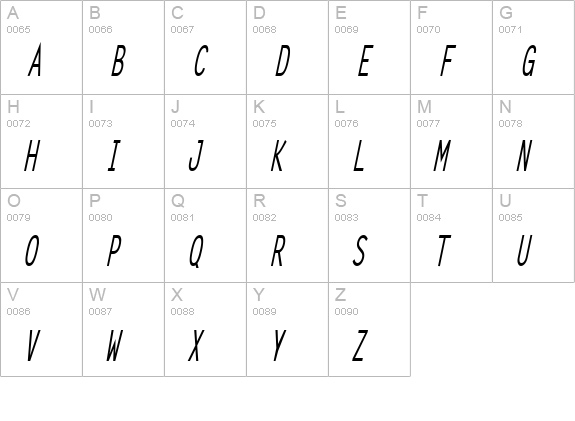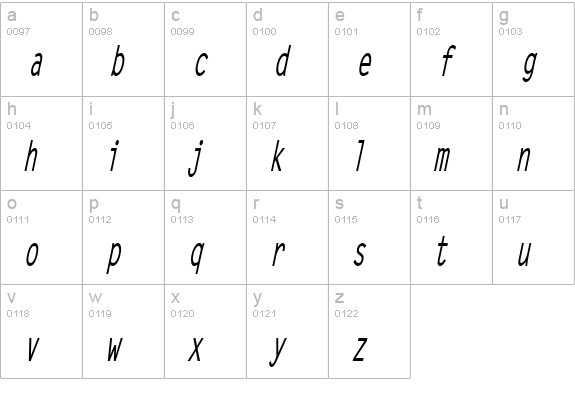
Lechter Thin BoldItalic is a delicate, low-contrast variant in the Lechter typeface family \xE2\x80\x94 well suited to fashion editorial, minimal branding, and high-contrast display.
Introducing the exquisite Lechter Thin BoldItalic font, an epitome of elegance and sophistication. This captivating typeface seamlessly combines the delicate grace of the Thin style with the bold confidence of the BoldItalic variant, creating a harmonious balance that is sure to leave a lasting impression. Lechter Thin BoldItalic exudes a sense of modernity with its sleek and streamlined design. The slender strokes of the Thin style are enhanced by the bold and slanted letterforms of the BoldItalic style, resulting in a visually striking and dynamic font that commands attention. Perfect for a wide range of design projects, Lechter Thin BoldItalic effortlessly elevates any creative endeavor. Whether used for logo designs, branding materials, editorial layouts, or social media graphics, this font adds a touch of sophistication and refinement to your work. And the best part? Lechter Thin BoldItalic is available for free! That's right, you can download this exceptional font at absolutely no cost from FontsMarket.com. Embrace the opportunity to enhance your design projects with this remarkable typeface without putting a strain on your budget. So, why wait? Experience the allure and versatility of Lechter Thin BoldItalic today. Download it for free at FontsMarket.com and unlock a world of creative possibilities. Elevate your design game and make a lasting impact with this remarkable font that seamlessly blends thin delicacy and bold intensity.